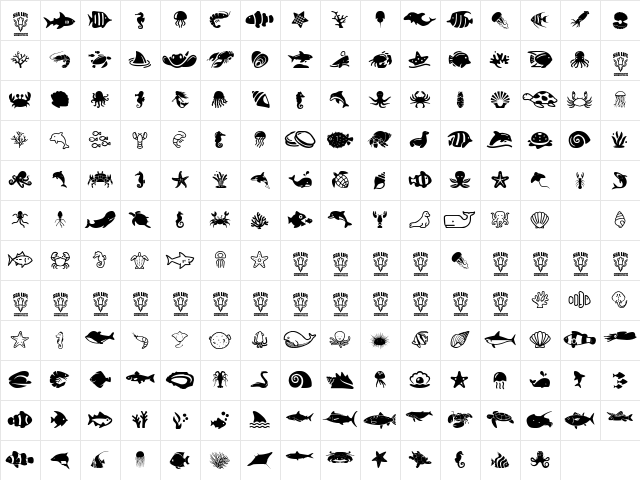
Sea Life Regular
| Designer | woodcutter manero |
Design Context for Sea Life Typeface
Sea Life is a composed and adaptable typeface that performs quietly and consistently across a wide range of design contexts.